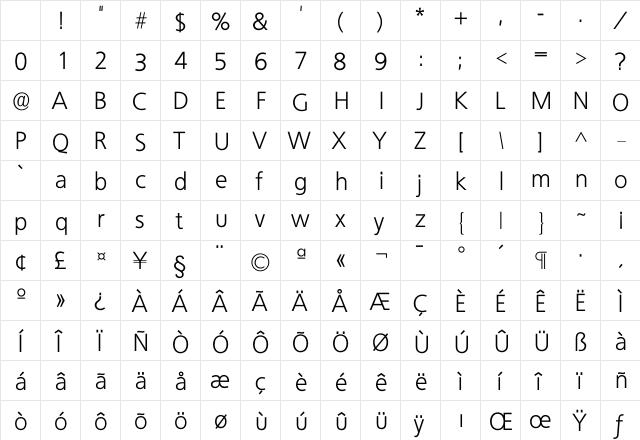
Complete Quebeck Light glyph index. Displaying only characters natively supported by Quebeck Light font.
Quebeck is a composed and adaptable typeface that performs quietly and consistently across a wide range of design contexts. Its slender proportions lend an understated elegance to any composition.